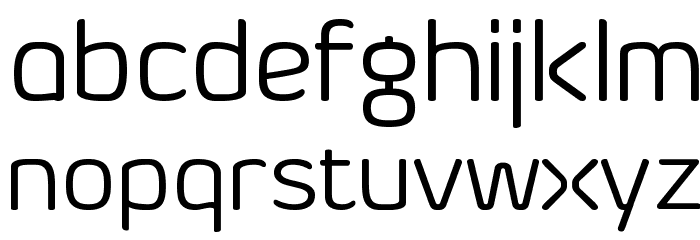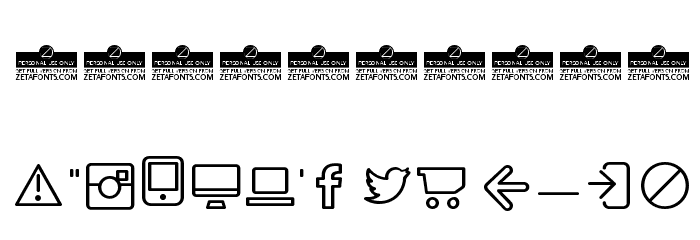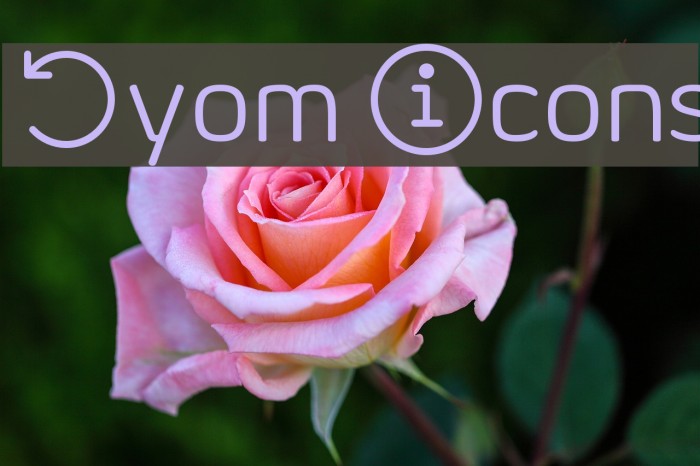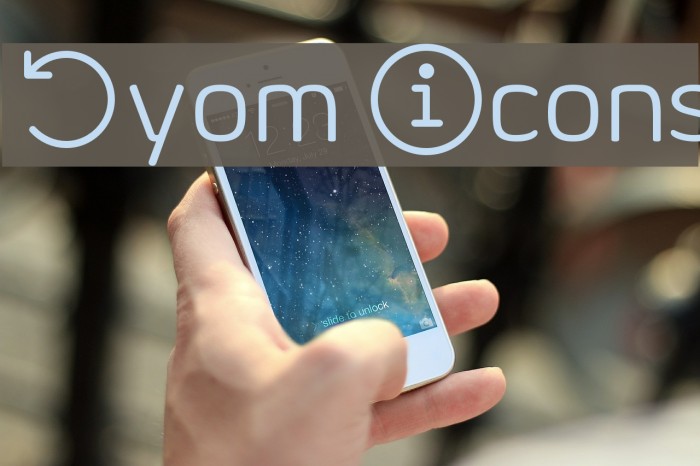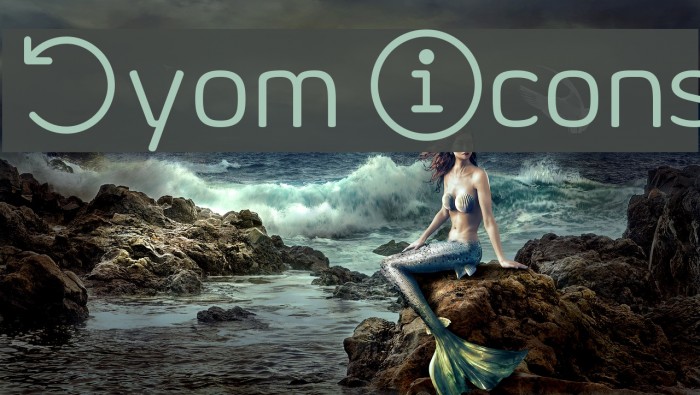
Byom Icons Font
This font features a clean, modern design with rounded edges and a geometric structure. The lowercase letters are uniform in height, creating a harmonious and balanced appearance. The strokes are consistent in width, contributing to a sleek and minimalist aesthetic. The font is highly legible, making it suitable for various digital applications. It includes a comprehensive set of icons, enhancing its versatility for user interface design. The overall style is contemporary, with a focus on simplicity and functionality.
A modern, geometric font with rounded edges and consistent stroke width.
- Proposed Projects: Ideal for digital interfaces, app design, and modern branding projects.
- Use Case: Logos, User Interfaces, Digital Media